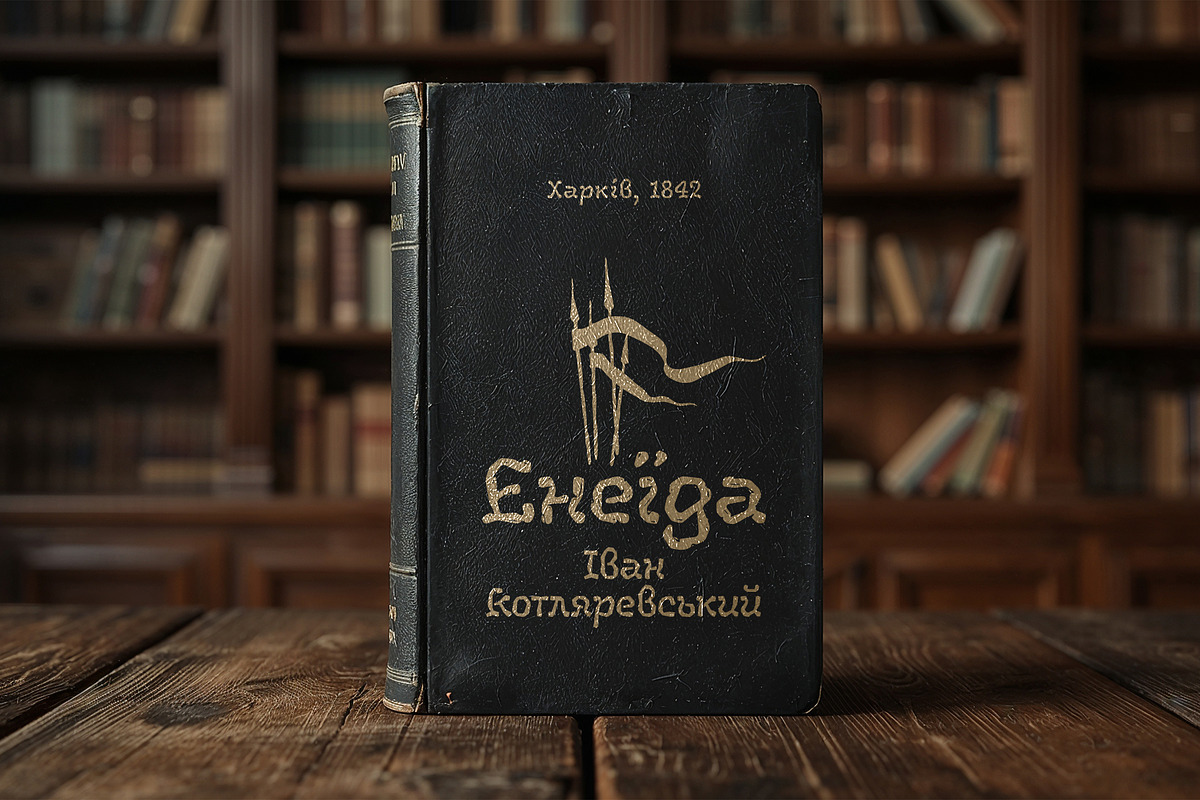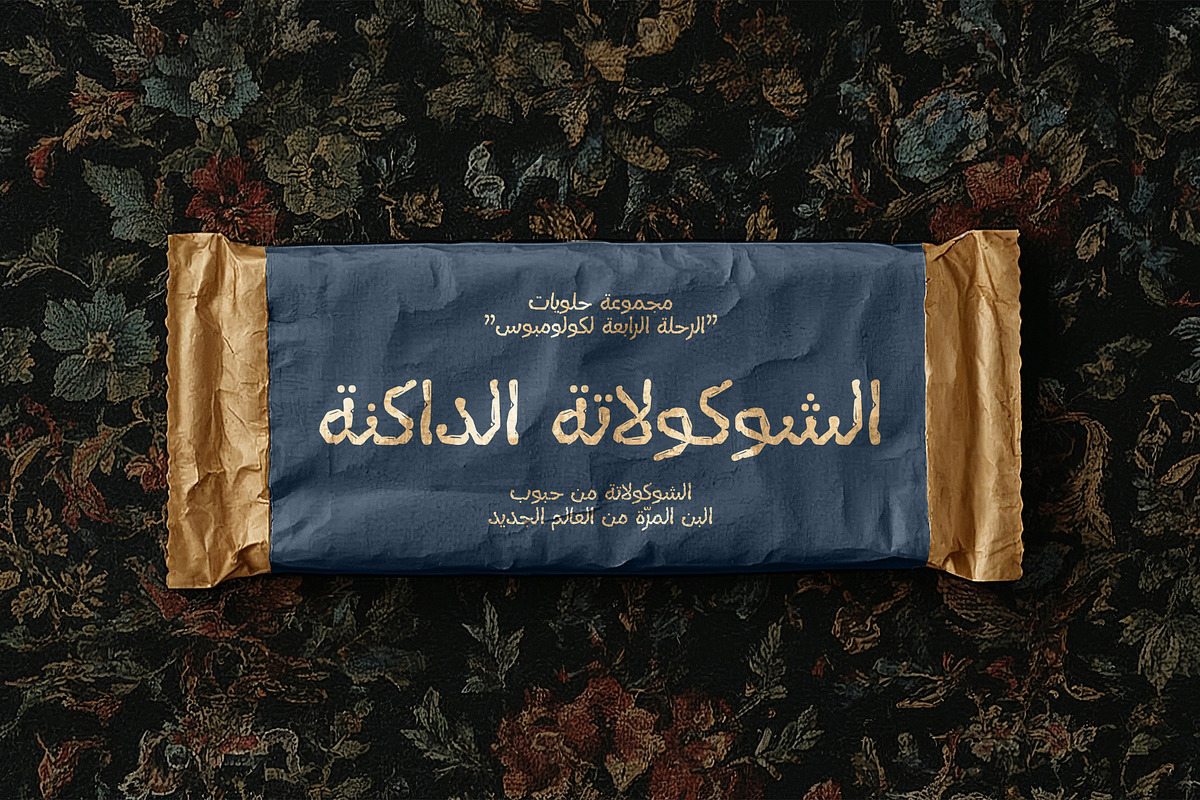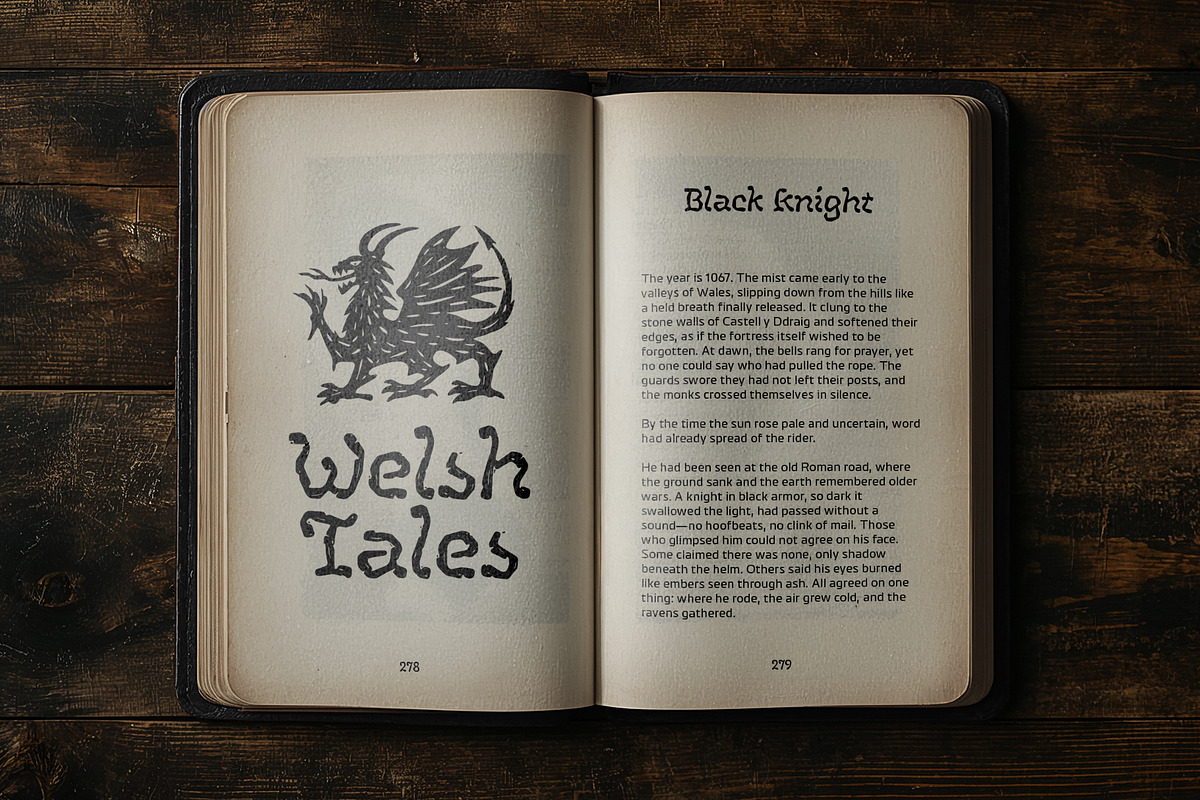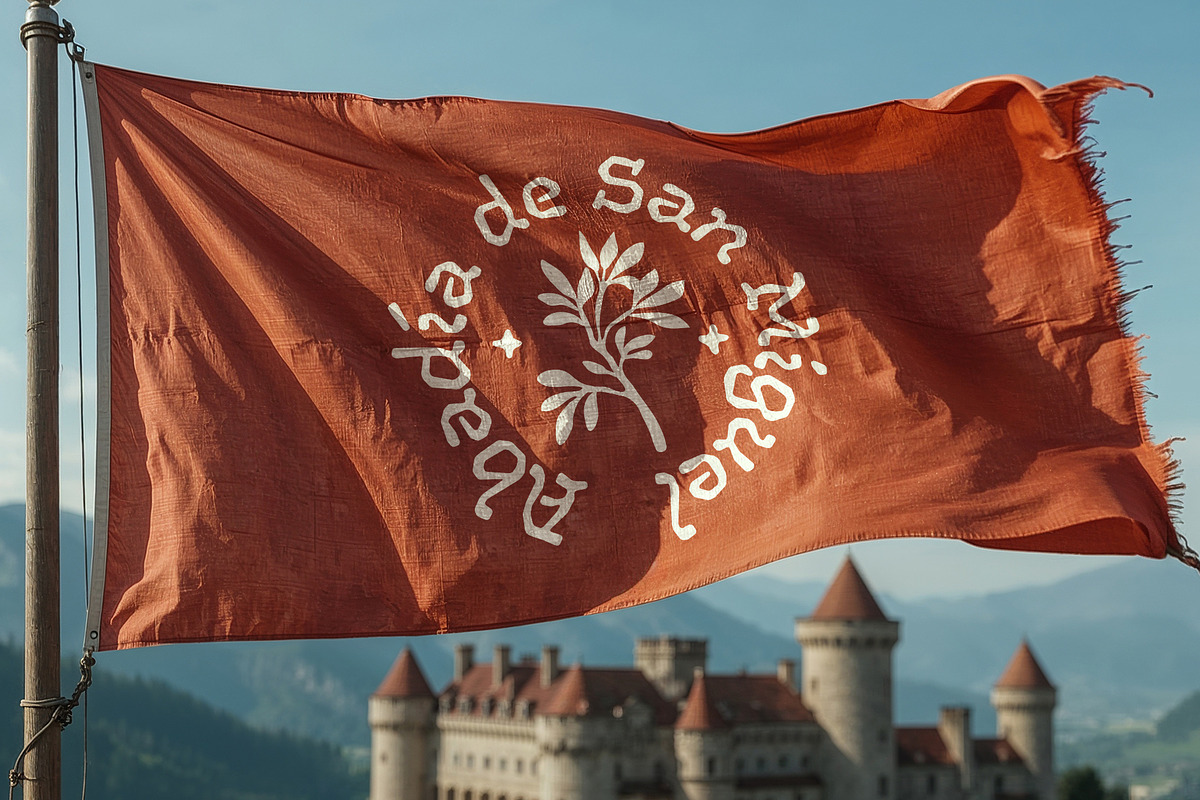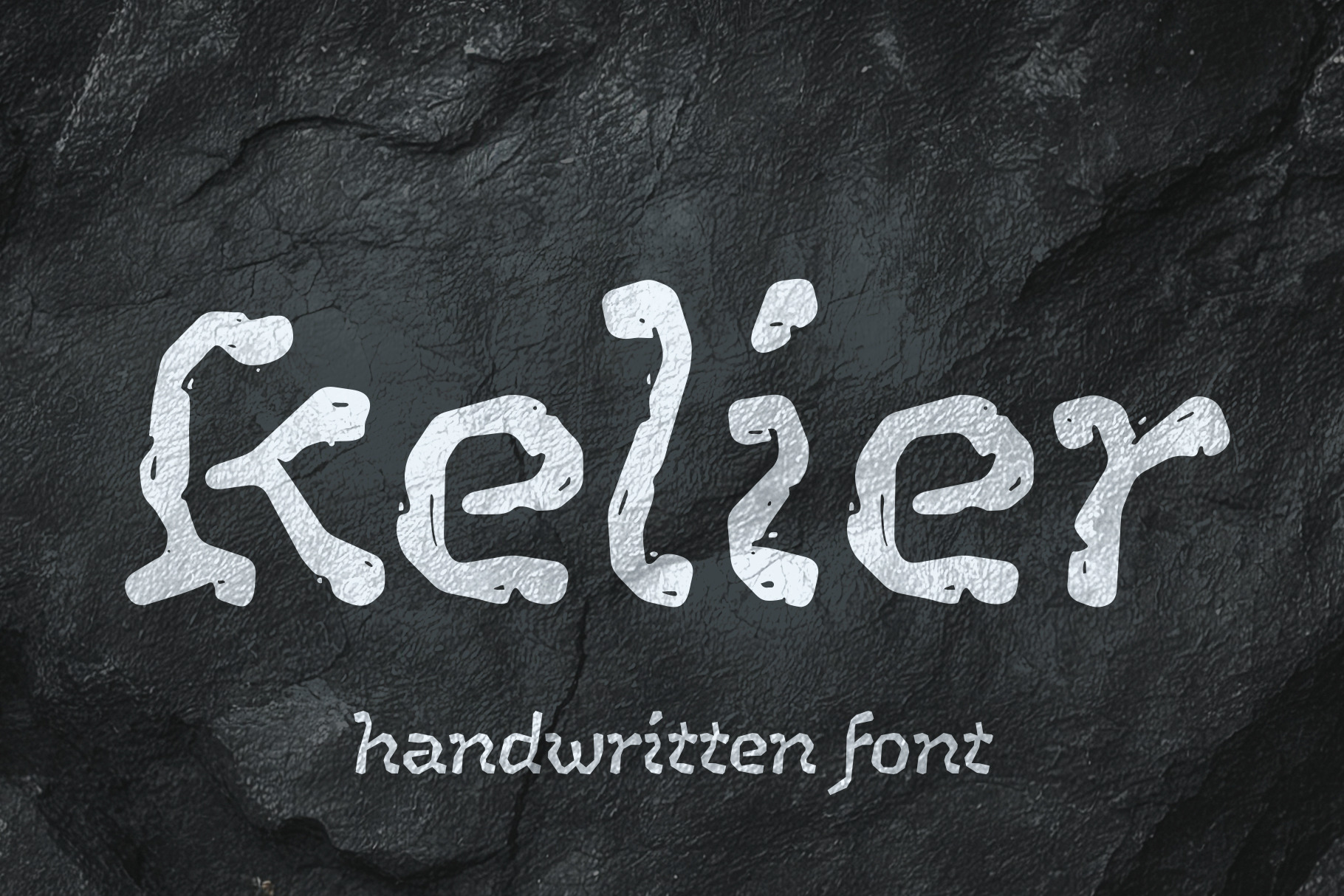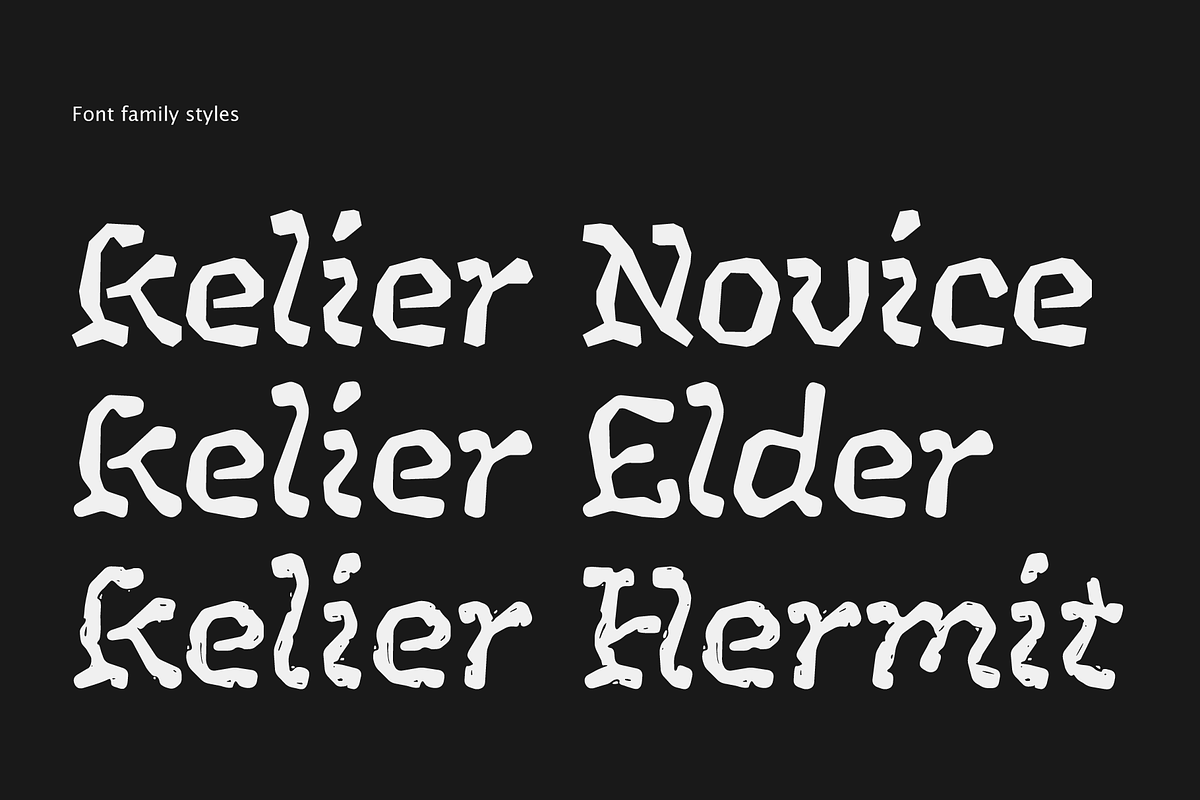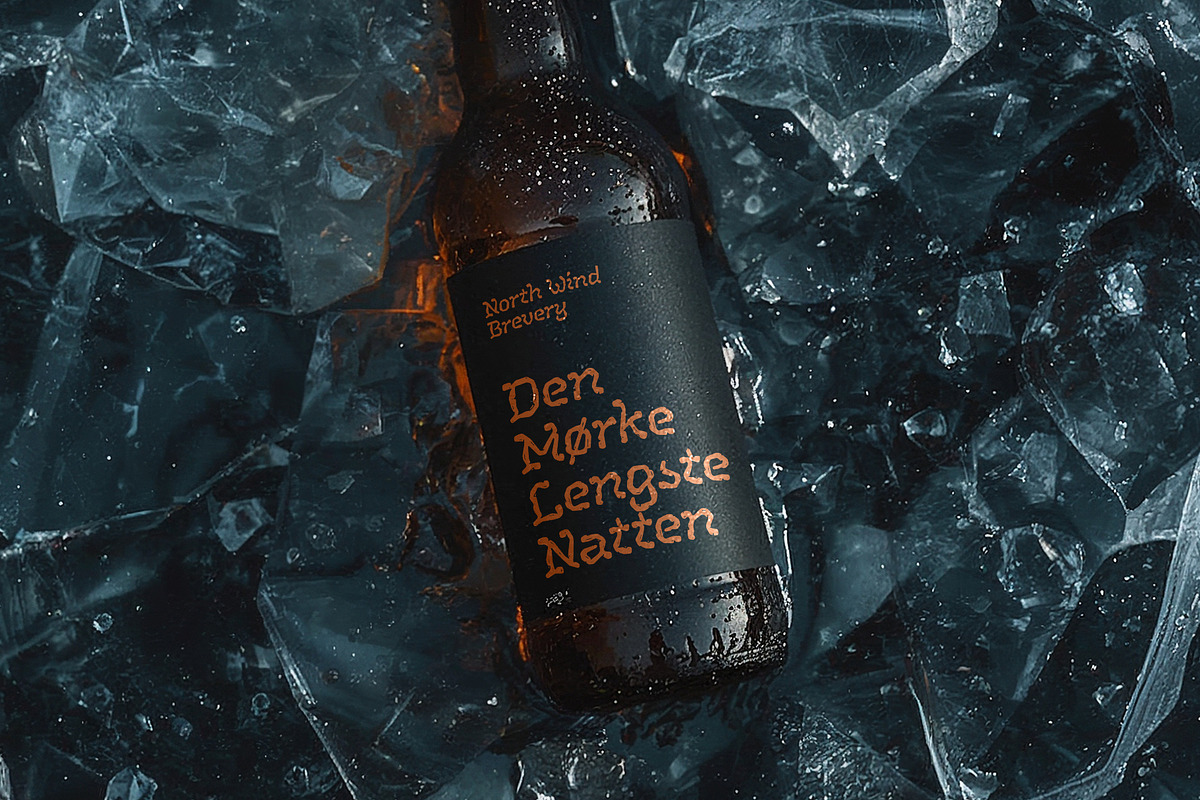
Kelier font
Inspired by the rough asceticism of cave monastic cells, Kelier is a continuation of a series of carved–forged typefaces (such as Morta and Kingfall), where the form is mainly composed of straight, rough edges. The font family includes three styles: Novice (rough straight shapes with sharp corners), Elder (softer shapes with rounded corners), Hermit (decorated with scratches and scuffs).
Styles: Novice, Elder, Hermit
Scripts supported: Latin, Cyrillic, Greek, Armenian, Georgian, Hebrew, Arabic
OpenType features
Stylistic Alternates: Y s յ
Contextual Alternates: Дд Дз Ду Цд Цз Цу Щд Щз Щу цд цз цу щд щз щу զյ էյ կյ ղյ շյ չյ պյ ջյ վյ քյ
Standard Ligatures: ff її և ﬔ ﬓ ﬕ ﬖ ﬗ
Stylistic Set 1 “Arrows”: Left: Up: Left Right: Up Down: North West: South East: > South West: